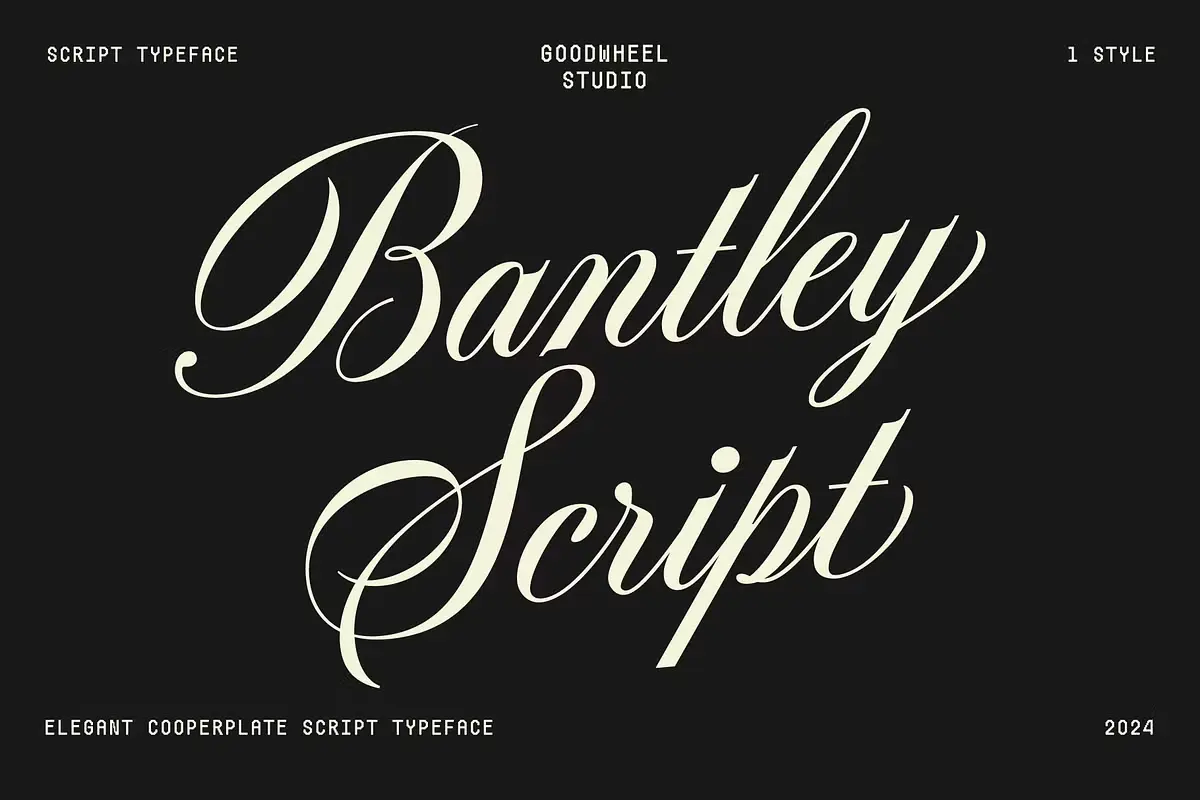
Bantley is a fresh and stylish script calligraphy font, available in Regular style. With its friendly and charming design, complete with swashes, Bantley is the ideal choice for a variety of creative projects. Its delicate strokes and fluid movements capture the timeless elegance of traditional calligraphy, adding a touch of sophistication to your work.
Bantley effortlessly brings a fashionable and refined calligraphic style to your designs, making it perfect for any project. Transform your text into a stunning work of art with Bantley’s graceful and artistic flair.
Bantley Calligraphy Script Font